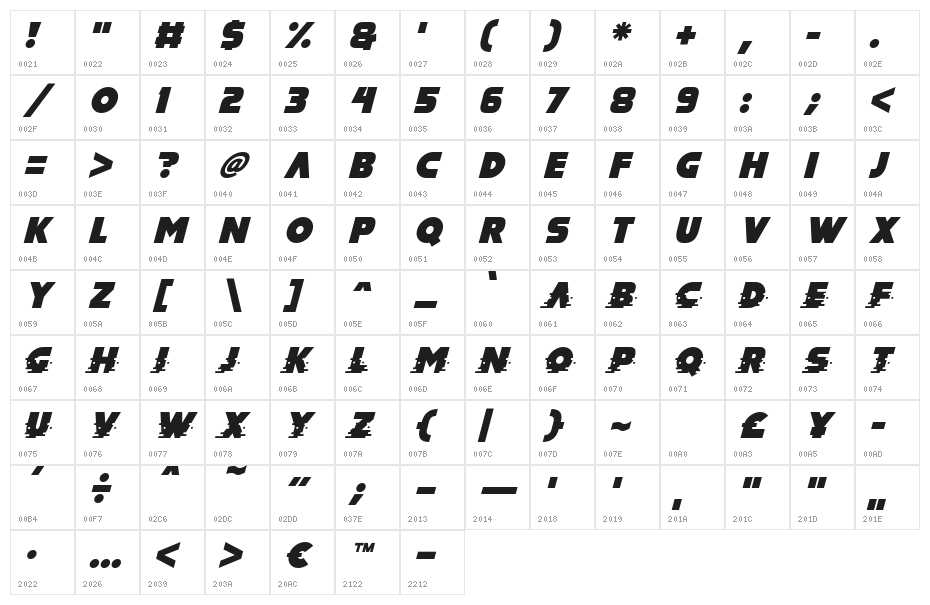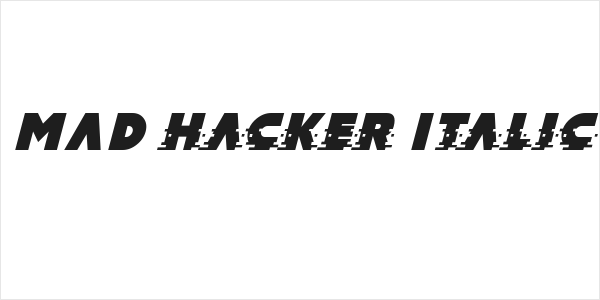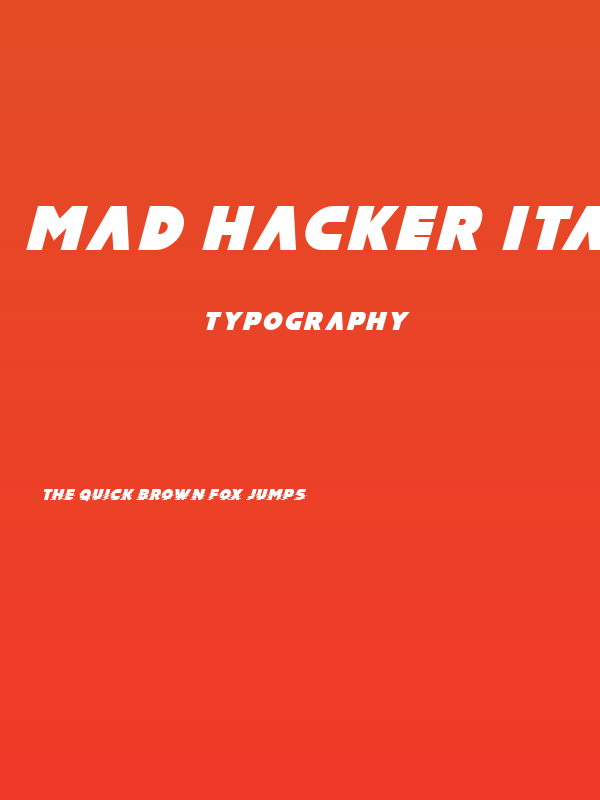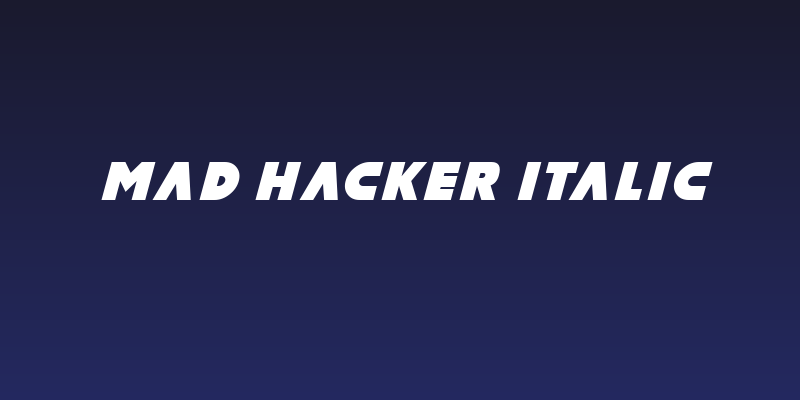
MAD hacker Italic Font
MAD hacker Italic Description
This font features a bold and dynamic style with a distinct italic slant, giving it a sense of movement and urgency. The characters are thick and robust, with a modern, edgy appearance. The uppercase and lowercase letters maintain a consistent weight, while the numbers and special characters are designed to match the overall aesthetic. The font includes a unique glitch effect, adding a digital, futuristic touch that makes it stand out. This effect is particularly noticeable in the uppercase and lowercase letters, creating a sense of disruption and innovation.
| Proposed Projects | Ideal for tech-related projects, digital art, video game graphics, and edgy branding. |